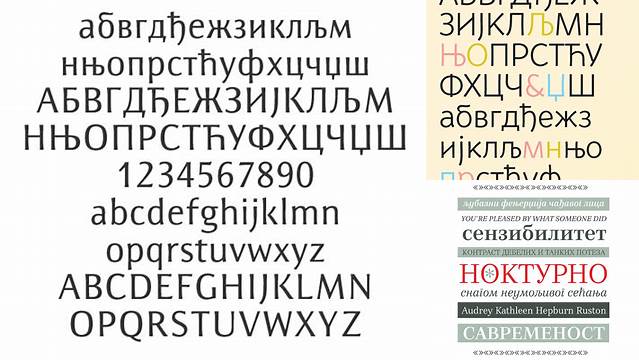
Serbian Fonts: Free Downloads For Your Projects
Hey guys! Looking to add a touch of Serbian flair to your projects? You've come to the right place. This guide is all about serbian fonts free download. We'll explore where to find them, how to use them, and even some cool facts about Serbian typography. Let's dive in!
1. Understanding Serbian Cyrillic Fonts
When we talk about serbian fonts free download, it's crucial to understand we're mostly dealing with Cyrillic script. Unlike the Latin alphabet we're used to in English, Serbian uses a modified version of Cyrillic. This means the fonts you'll be downloading will feature characters like Б, Г, Д, and so on. Now, don't let that scare you! Using Cyrillic fonts can add a unique and authentic touch to your designs, especially if you're working on projects related to Serbian culture, history, or language. Finding the right font involves considering factors like readability, style, and purpose. For instance, a formal document might require a clean, classic Cyrillic font, while a creative project might benefit from a more stylized or decorative option. Remember to check the font license before using it commercially to ensure you're complying with the author's terms. There are a lot of resources online that will help you install these fonts, but it's usually as simple as downloading the font file and double-clicking it.
2. Top Websites for Serbian Font Downloads
So, where can you actually find these serbian fonts free download? Several websites offer a wide variety of Cyrillic fonts, some specifically designed for the Serbian language. Some popular options include Font Squirrel, Google Fonts (which has a growing collection of Cyrillic fonts), and various smaller font foundries that specialize in Eastern European typography. When browsing these sites, use keywords like "Cyrillic fonts," "Serbian Cyrillic," or even specific font styles you're looking for (e.g., "Cyrillic serif font"). Always double-check the font license before downloading to make sure it's free for your intended use, especially for commercial projects. Pay attention to user reviews and ratings, if available, as these can give you an idea of the font's quality and usability. If you're having trouble finding a specific font, try using a font identifier tool, where you can upload an image of the font and the tool will attempt to identify it for you. Remember to keep your system organized by creating a dedicated folder for your downloaded fonts.
3. Exploring Google Fonts: Serbian Options
Google Fonts is a fantastic resource for serbian fonts free download, especially because it's integrated with many design tools and websites. The beauty of Google Fonts is its ease of use and the fact that all fonts are open-source and free to use, even commercially. To find Serbian Cyrillic fonts on Google Fonts, simply search for "Cyrillic" and then filter by language, looking for "Serbian." You'll find a selection of fonts that support the Serbian Cyrillic alphabet. Preview the fonts to see how they look in different sizes and styles, and consider using font pairing tools to find complementary fonts for headings and body text. A great feature of Google Fonts is the ability to embed the fonts directly into your website using a simple code snippet, which means you don't have to upload the font files to your server. This can improve your website's loading speed and performance. Don't forget to explore the different font weights and styles available for each font to find the perfect fit for your project. With Google Fonts, accessing high-quality Serbian Cyrillic fonts has never been easier.
4. Font Squirrel: A Great Resource
7. Installing Serbian Fonts on macOS
Installing serbian fonts free download on macOS is just as easy as on Windows. Once you've downloaded the font file (usually in .ttf or .otf format), double-click the file. This will open the Font Book application. In Font Book, click the "Install Font" button. macOS will then install the font, making it available for use in your applications. Alternatively, you can manually install the font by dragging and dropping the font file into the Font Book application. To do this, open Font Book, then drag and drop the font file into the application window. macOS will automatically install the font. After installing the font, you may need to restart your applications for the font to appear in the font list. If you're having trouble installing a font, make sure the font file is not corrupted and that you have the necessary permissions to install fonts on your system. With these simple steps, you'll be able to use your Serbian fonts on your Mac.
8. Using Serbian Fonts in Microsoft Word
Using serbian fonts free download in Microsoft Word is simple. First, make sure you've installed the Serbian font on your computer. Then, open Microsoft Word and select the text you want to format. In the font selection menu, scroll through the list of available fonts until you find the Serbian font you installed. Select the font, and the text will be formatted in the Serbian Cyrillic script. If you're typing in Serbian, make sure your keyboard layout is set to Serbian Cyrillic. You can usually change the keyboard layout in your operating system's settings. If you're having trouble finding the Serbian font in Word, try restarting the application or your computer. Using Serbian fonts in Word allows you to create documents and reports with authentic Serbian typography.
9. Using Serbian Fonts in Adobe Photoshop
Integrating serbian fonts free download into Adobe Photoshop is a breeze. First, ensure that the Serbian font is properly installed on your system. Launch Adobe Photoshop and open the text tool. Choose the area where you'd like to place the text. Navigate to the font selection menu, which is usually located at the top of the screen. Scroll through the available fonts until you find the Serbian font you've installed. Select the font, and begin typing your text. If you're typing in Serbian, make sure your keyboard layout is set to Serbian Cyrillic. You can usually change the keyboard layout in your operating system's settings. Experiment with different font sizes, colors, and styles to achieve the desired effect. Using Serbian fonts in Photoshop allows you to create visually appealing designs with authentic Serbian typography.
10. Creating a Serbian Logo with Free Fonts
Designing a logo that includes serbian fonts free download can create a unique and authentic brand identity. Start by brainstorming ideas for your logo and considering the message you want to convey. Choose a Serbian Cyrillic font that reflects the style and personality of your brand. Consider the font's readability, especially if the logo will be used in small sizes. Experiment with different font combinations and layouts to find the most visually appealing design. Use a design software like Adobe Illustrator or Inkscape to create your logo. Pay attention to the kerning and spacing of the letters to ensure a professional look. Once you're happy with the design, save the logo in various formats (e.g., PNG, SVG) for different uses. Creating a Serbian logo with free fonts can help you establish a strong and memorable brand presence.
11. Serbian Font Styles: Serif vs. Sans-Serif
When choosing serbian fonts free download, you'll encounter two main categories: serif and sans-serif. Serif fonts have small decorative strokes at the ends of the letters, while sans-serif fonts do not. Serif fonts are often considered more traditional and formal, while sans-serif fonts are seen as more modern and clean. The choice between serif and sans-serif depends on the overall style and purpose of your project. For example, a formal document or website might benefit from a serif font, while a modern app or logo might be better suited to a sans-serif font. Experiment with different serif and sans-serif fonts to see which ones work best for your needs. Consider the readability of the font, especially at smaller sizes. Ultimately, the best choice is the one that best conveys your message and enhances the overall design.
12. Combining Serbian and Latin Fonts
Combining serbian fonts free download with Latin fonts can create a visually interesting and dynamic design. However, it's important to do it carefully to avoid a clash of styles. Choose Latin fonts that complement the Serbian Cyrillic fonts in terms of weight, style, and overall aesthetic. Consider using a font pairing tool to find suitable Latin font pairings. Use the Latin font for headings and the Serbian font for body text, or vice versa. Pay attention to the contrast between the two fonts to create a clear visual hierarchy. Avoid using too many different fonts in one design, as this can create a cluttered and confusing look. When done well, combining Serbian and Latin fonts can add a unique and sophisticated touch to your projects.
13. Kerning and Spacing in Serbian Typography
Kerning and spacing are crucial aspects of serbian fonts free download, that affect readability and visual appeal. Kerning refers to the adjustment of the space between individual letters, while spacing refers to the overall space between words and lines of text. Proper kerning and spacing can improve the readability of a font and make it more visually pleasing. Pay attention to the kerning of your Serbian fonts, especially at larger sizes. Adjust the spacing between words and lines of text to create a comfortable reading experience. Use a design software like Adobe Illustrator or InDesign to fine-tune the kerning and spacing of your text. A well-kerned and spaced font will enhance the overall quality of your design.
14. Finding Bold and Italic Serbian Font Styles
When searching for serbian fonts free download, you'll often need bold and italic styles to add emphasis and variety to your text. Not all fonts include bold and italic styles, so it's important to check before downloading. Look for font families that include multiple weights and styles, such as regular, bold, italic, and bold italic. These font families provide greater flexibility and allow you to create more dynamic designs. If a font doesn't include bold or italic styles, you can sometimes simulate them using design software, but this is generally not recommended as it can distort the font's appearance. Always try to find fonts that include true bold and italic styles for the best results. These styles will be designed to maintain the font's original proportions and ensure optimal readability.
15. Using Serbian Fonts for Web Design
Using serbian fonts free download for web design requires careful consideration of factors like readability, loading speed, and browser compatibility. Choose web-safe Serbian fonts that are widely supported by different browsers and operating systems. Consider using Google Fonts, as they are optimized for web use and can be easily embedded into your website using a simple code snippet. Optimize the font files to reduce their size and improve loading speed. Use CSS to control the font's appearance, including its size, color, and spacing. Test your website on different browsers and devices to ensure that the Serbian fonts are displayed correctly. Using Serbian fonts effectively in web design can enhance the user experience and create a more authentic online presence.
16. Serbian Font Generators: Are They Useful?
Serbian font generators can be tempting when looking for serbian fonts free download, but they come with caveats. These tools often allow you to create custom fonts by drawing letters or modifying existing fonts. However, the quality of the fonts generated can vary greatly. Many font generators produce fonts that are poorly designed, difficult to read, or lack proper kerning and spacing. Additionally, the licensing terms of fonts generated by these tools may be unclear, which can create legal issues. It's generally better to use professionally designed fonts from reputable sources, such as Google Fonts or Font Squirrel. While font generators can be a fun way to experiment with typography, they are usually not suitable for professional design work.
17. The History of Serbian Cyrillic Typography
The history of serbian fonts free download is deeply intertwined with the development of the Serbian Cyrillic script. The Cyrillic alphabet was created in the 9th century by Saints Cyril and Methodius, and it was later adapted for the Serbian language. Over the centuries, Serbian Cyrillic typography has evolved and adapted to changing technologies and design trends. Early Serbian printed books used hand-cut wooden type, which was later replaced by metal type. In the 20th century, the development of digital fonts revolutionized Serbian typography, making it easier to create and distribute fonts. Today, Serbian Cyrillic typography continues to evolve, with new fonts being designed and released all the time. Understanding the history of Serbian Cyrillic typography can provide valuable context for choosing and using Serbian fonts in your projects.
18. Common Mistakes When Using Serbian Fonts
Even with serbian fonts free download, using them correctly requires attention to detail. One common mistake is using fonts that are not properly encoded, which can result in garbled or missing characters. Another mistake is using fonts that are too small or too large, which can make text difficult to read. Ignoring kerning and spacing can also detract from the visual appeal of your text. Choosing fonts that are not appropriate for the overall style and purpose of your project is another common mistake. Always double-check your work to ensure that your Serbian fonts are displayed correctly and that your text is easy to read. By avoiding these common mistakes, you can create designs that are both visually appealing and effective.
19. Creating Authentic Serbian Designs
To create truly authentic Serbian designs with serbian fonts free download, it's important to understand the cultural context and traditions of Serbian typography. Research the history of Serbian design and learn about the different styles and influences that have shaped it. Use colors, images, and layouts that are consistent with Serbian cultural norms. Pay attention to the details, such as the use of diacritics and special characters. Consider using traditional Serbian motifs and patterns in your designs. By immersing yourself in Serbian culture and design traditions, you can create designs that are both visually appealing and culturally sensitive.
20. Where to Find Inspiration for Serbian Typography
Finding inspiration is key, even when working with serbian fonts free download. Look to traditional Serbian art, architecture, and design for ideas. Explore the work of contemporary Serbian designers and typographers. Visit museums and galleries that showcase Serbian art and culture. Browse online design communities and blogs for examples of Serbian typography in action. Pay attention to the colors, patterns, and layouts that are commonly used in Serbian design. By seeking out inspiration from a variety of sources, you can develop a unique and authentic style for your own Serbian typography.
21. Advanced Typography Techniques for Serbian Fonts
Even serbian fonts free download can benefit from advanced typography. Experiment with advanced typography techniques such as ligatures, alternate characters, and contextual alternates. Ligatures are special characters that combine two or more letters into a single glyph. Alternate characters are different versions of the same letter that can be used to add variety and visual interest to your text. Contextual alternates are characters that change depending on the surrounding letters. These techniques can enhance the readability and visual appeal of your Serbian fonts. However, it's important to use them sparingly and with care, as overusing them can create a cluttered and confusing look.
22. The Future of Serbian Font Design
The future of serbian fonts free download looks bright, with new technologies and design trends constantly shaping the field. Expect to see more innovative and experimental Serbian fonts being developed, pushing the boundaries of traditional typography. AI and machine learning may play a role in font design, automating certain tasks and enabling designers to create more complex and nuanced fonts. Open-source font projects will likely continue to grow, providing designers with access to a wider range of free and customizable Serbian fonts. As the demand for digital content in Serbian increases, the need for high-quality Serbian fonts will continue to grow, driving innovation and creativity in the field.
23. Maintaining Readability with Serbian Fonts
While visual appeal is important for serbian fonts free download, readability is paramount. Choose fonts that are easy to read, especially at smaller sizes. Pay attention to the kerning and spacing of your text to ensure that the letters are not too crowded or too far apart. Use a clear and consistent visual hierarchy to guide the reader's eye. Avoid using too many different fonts in one design, as this can create a cluttered and confusing look. Test your designs with different audiences to get feedback on readability. By prioritizing readability, you can ensure that your message is effectively communicated.
24. Optimizing Serbian Fonts for Print
Optimizing serbian fonts free download for print requires different considerations than optimizing for web. Choose fonts that are well-suited for print, with crisp, clean lines and proper kerning and spacing. Use high-resolution font files to avoid pixelation or blurring. Consider the paper stock and printing process when selecting your fonts. Test your designs by printing them out at different sizes and resolutions. Pay attention to the color and contrast of your text to ensure that it is easily readable. By optimizing your Serbian fonts for print, you can create professional-looking documents and designs.
25. Mobile-Friendly Serbian Typography
Creating mobile-friendly typography, even with serbian fonts free download, requires careful planning and execution. Choose fonts that are easy to read on small screens. Use responsive design techniques to ensure that your text scales properly on different devices. Optimize your font files to reduce their size and improve loading speed. Use CSS media queries to adjust the font size, color, and spacing based on the screen size. Test your designs on different mobile devices to ensure that your Serbian fonts are displayed correctly. By optimizing your Serbian typography for mobile, you can create a seamless user experience for your mobile audience.
26. The Best Font Sizes for Serbian Text
Choosing the right font sizes, even with serbian fonts free download, is crucial for readability and visual appeal. For body text, a font size of 16-18 pixels is generally recommended for web design. For headings, use larger font sizes to create a clear visual hierarchy. Consider the font's x-height (the height of the lowercase letters) when choosing your font sizes. Experiment with different font sizes to see what works best for your specific design. Test your designs on different devices and screen sizes to ensure that your text is easily readable. The best font sizes for Serbian text will depend on the specific font, the context, and the target audience.
27. Serbian Fonts and SEO: What You Need to Know
Even though you're focused on serbian fonts free download, SEO matters! Using Serbian fonts on your website can have a positive impact on your SEO, but it's important to do it correctly. Make sure your website is properly localized for the Serbian language and that your content is written in grammatically correct Serbian. Use Serbian keywords in your website's title tags, meta descriptions, and headings. Use alt tags for images that contain Serbian text. Make sure your website is mobile-friendly and loads quickly. By optimizing your website for the Serbian language and using Serbian fonts effectively, you can improve your search engine rankings and attract more traffic from Serbian-speaking users.
28. Contributing to Open-Source Serbian Font Projects
Contribute to open-source font projects to support serbian fonts free download. If you're a font designer, consider releasing your own Serbian fonts under an open-source license. If you're not a font designer, you can still contribute by testing fonts, providing feedback, or helping with documentation. By contributing to open-source font projects, you can help to improve the quality and availability of Serbian fonts for everyone. Open-source font projects rely on the contributions of volunteers, so your help is always appreciated.
29. Common Serbian Characters and Diacritics
Understanding Serbian characters is important when working with serbian fonts free download. The Serbian Cyrillic alphabet includes several characters that are not found in the Latin alphabet, such as Б, Г, Д, Ж, and З. It also includes several characters with diacritics, such as Ћ, Ђ, Љ, Њ, and Џ. Make sure your chosen font supports all of these characters and diacritics. Use a Serbian keyboard layout to type these characters correctly. Pay attention to the placement of the diacritics to ensure that they are displayed properly. Using Serbian characters and diacritics correctly is essential for creating accurate and authentic Serbian text.
30. Resources for Learning Serbian Typography
To deepen your knowledge of serbian fonts free download and typography, utilize online and offline resources. Explore online typography courses and tutorials. Read books and articles on Serbian design and typography. Follow Serbian designers and typographers on social media. Attend workshops and conferences on typography. Join online design communities and forums. By continuously learning and exploring, you can develop a deeper understanding of Serbian typography and improve your design skills.